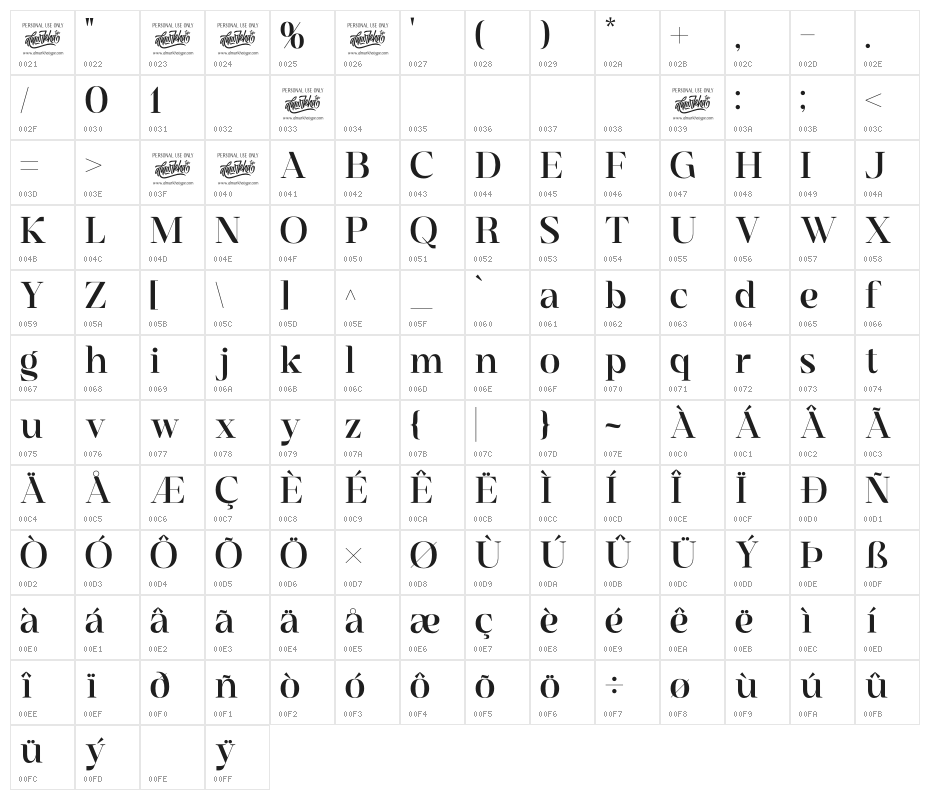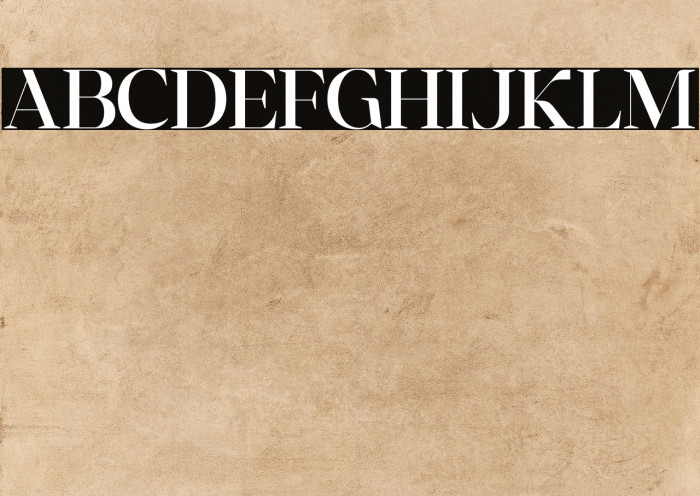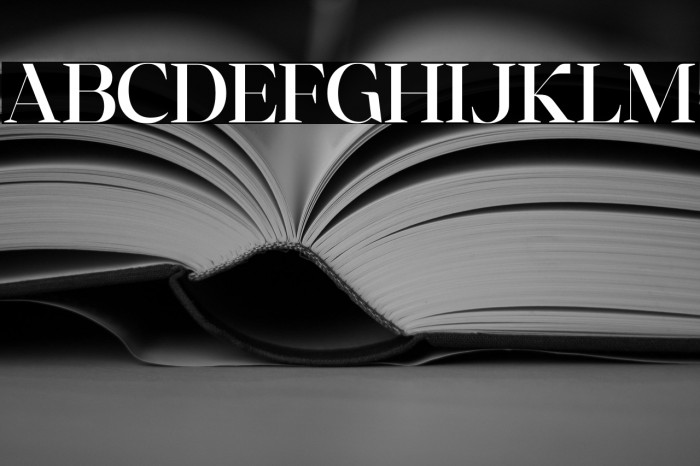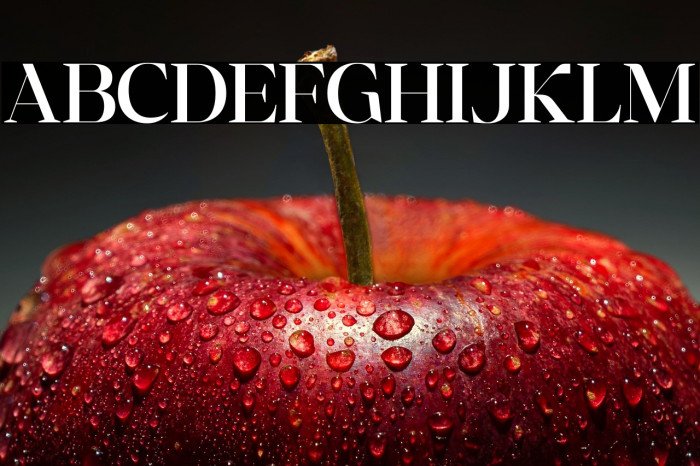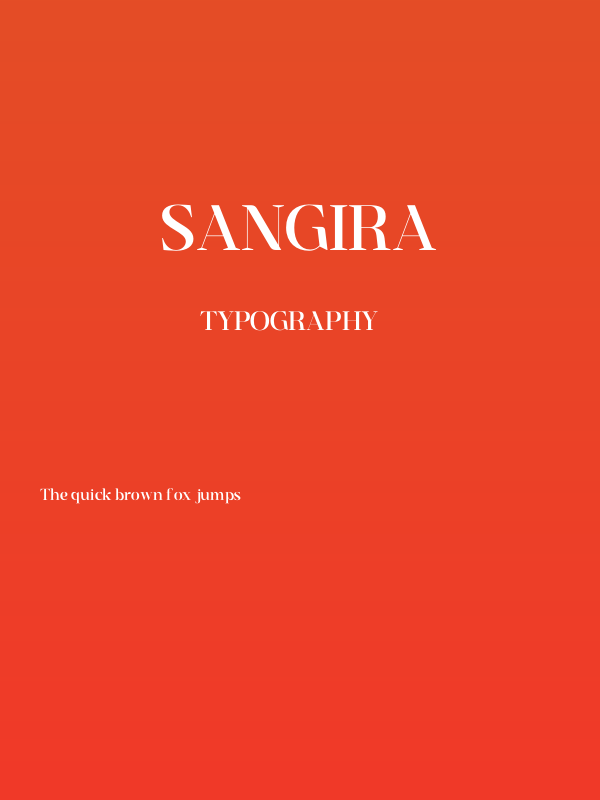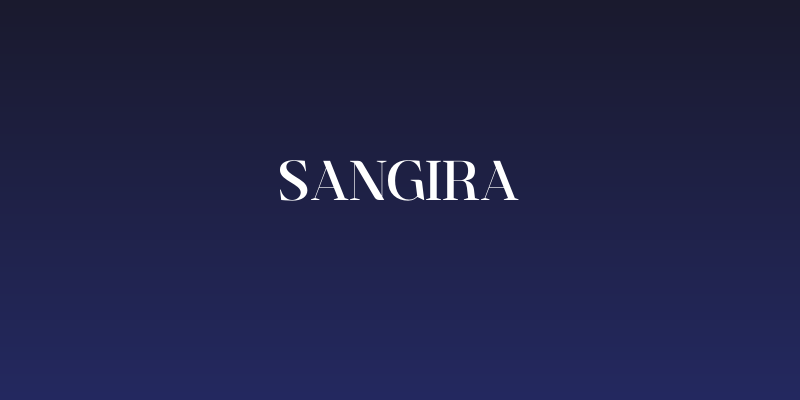
Sangira Font
Sangira Description
This font features a bold and elegant serif style with high contrast between thick and thin strokes, giving it a sophisticated and classic appearance. The uppercase letters are tall and commanding, while the lowercase letters maintain a consistent flow with slightly rounded edges. The numerals are clear and distinct, complementing the overall design. Special characters are well-integrated, maintaining the font's refined aesthetic. This font is suitable for projects that require a touch of elegance and tradition, making it ideal for formal invitations, branding, and editorial design.
| Use Case | Headlines, Logos, Editorial design |
| Proposed Projects | Ideal for formal invitations, branding, editorial design, and luxury product packaging. |